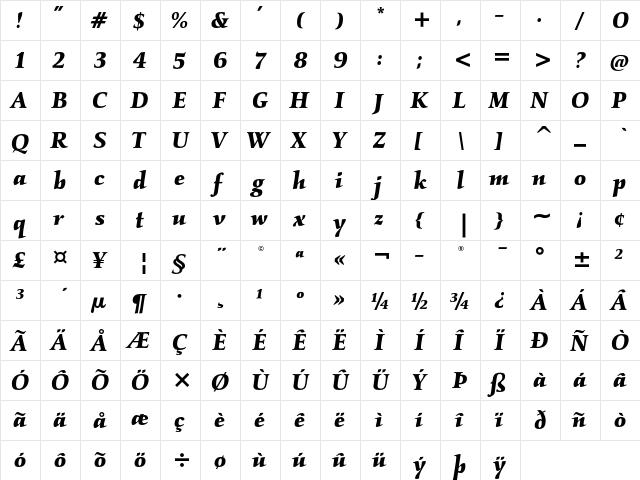
ITC Kallos LT Std Bold Italic Font Preview
| Foundry | Linotype GmbH |
| Designer | Phill Grimshaw |
Design Context for ITC Kallos LT Std Typeface
ITC Kallos LT Std offers clean, dependable letterforms without strong stylistic allegiance, making it a practical choice for designers who need flexibility. The slanted form adds forward momentum and visual energy. The heavy weight commands attention and anchors typographic hierarchies.
Pro Tip: Try ITC Kallos LT Std for annotation and caption copy alongside an upright companion — the contrast in angle creates a dynamic but ordered typographic system.